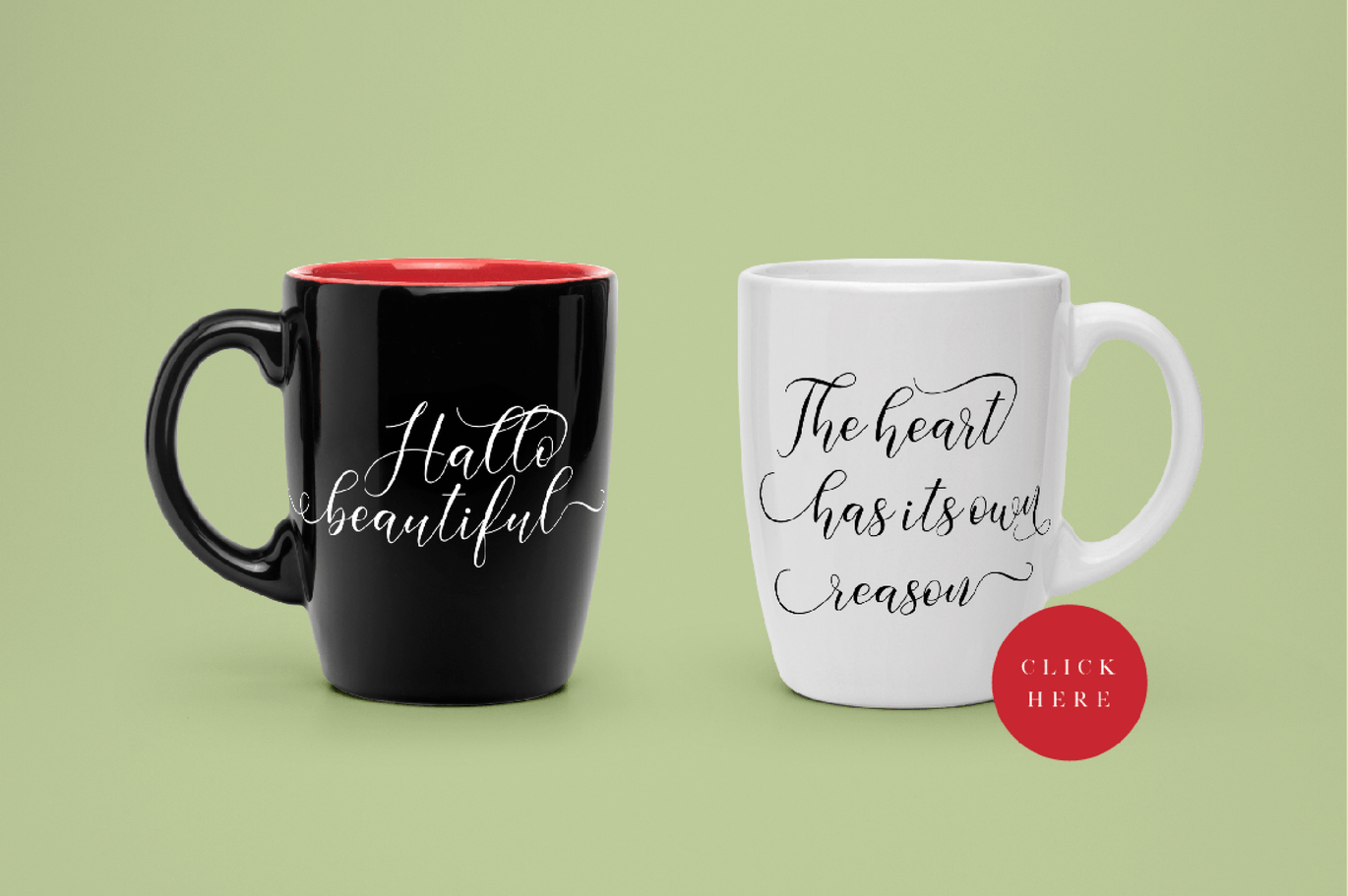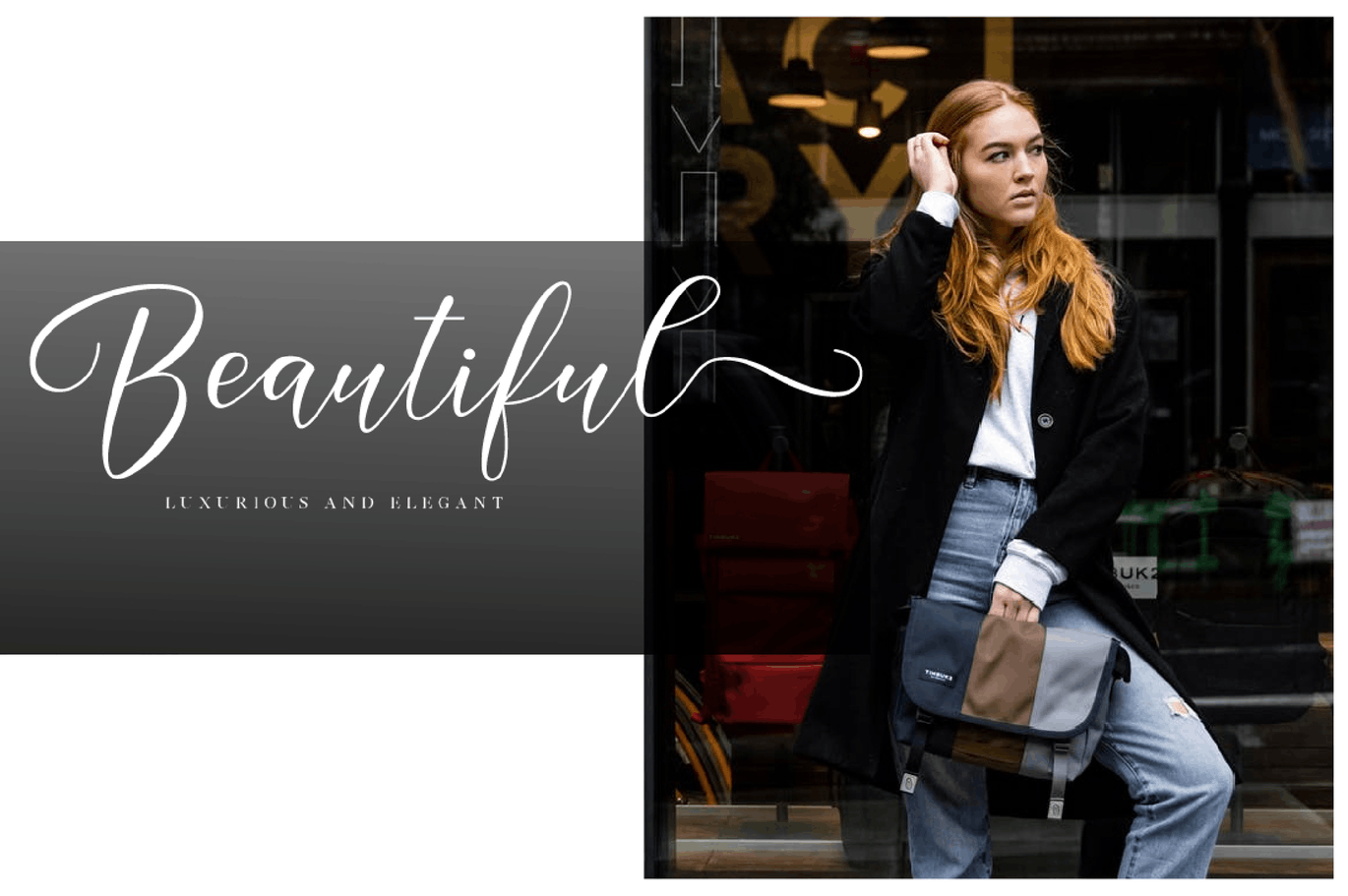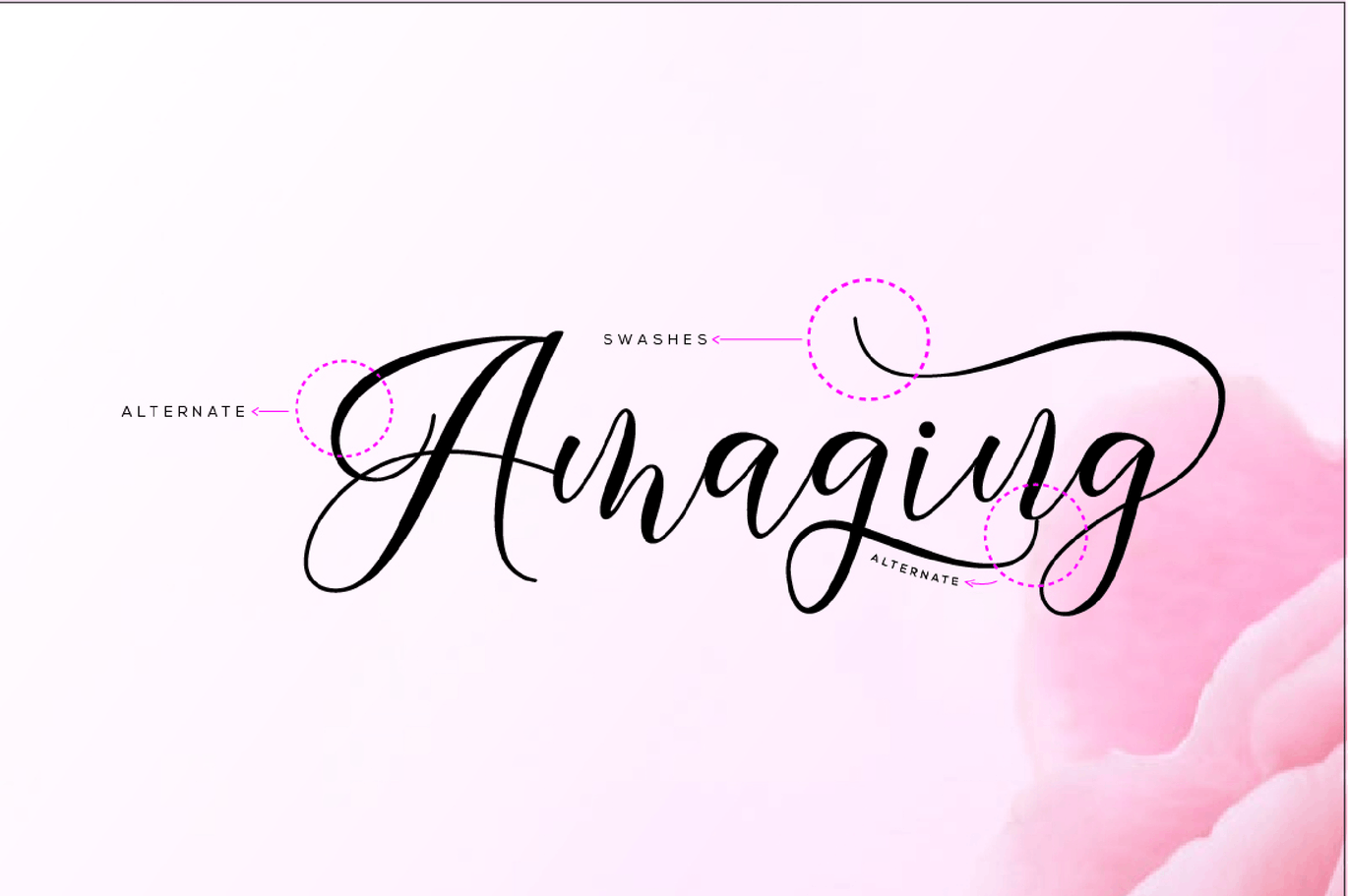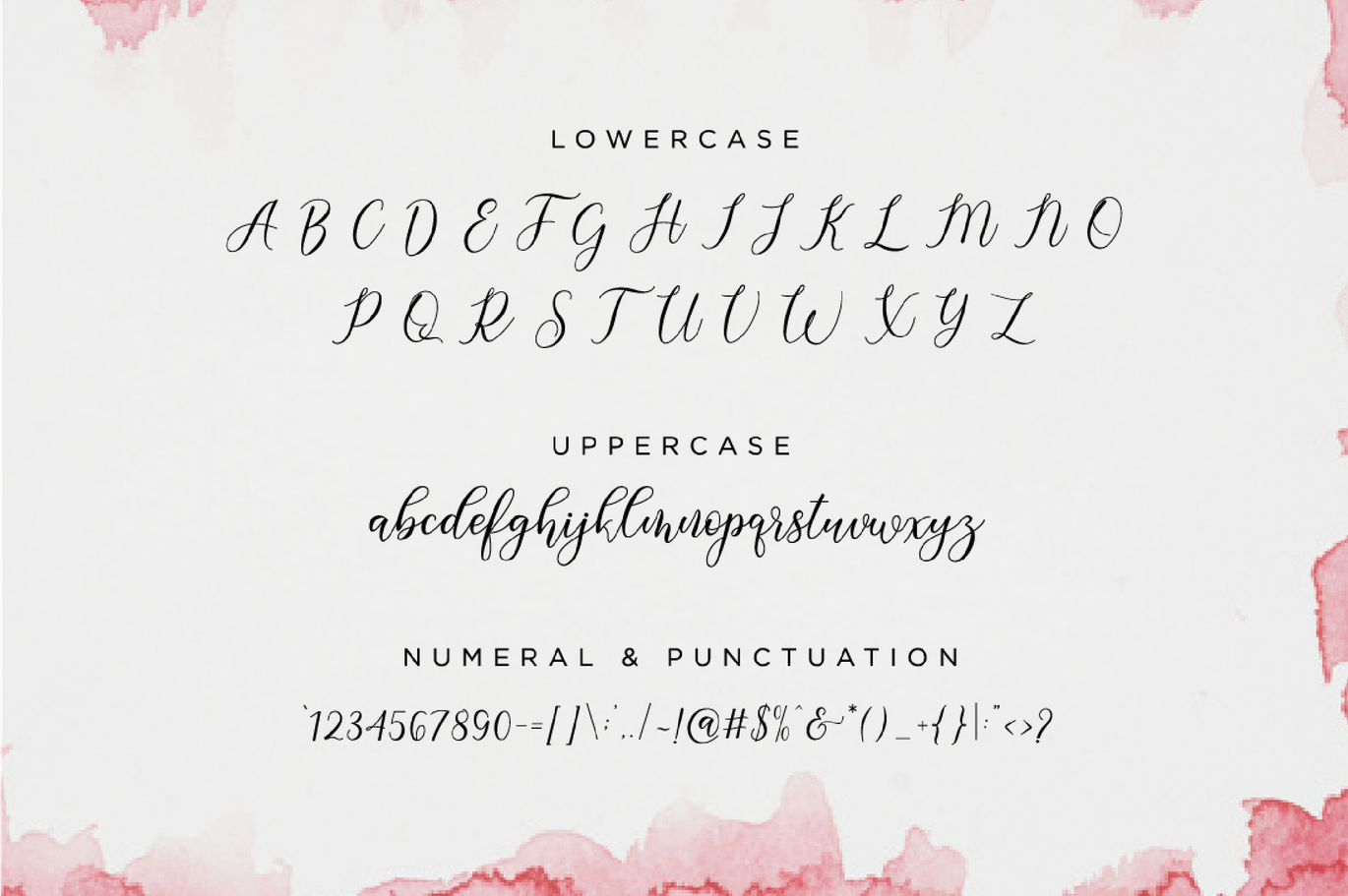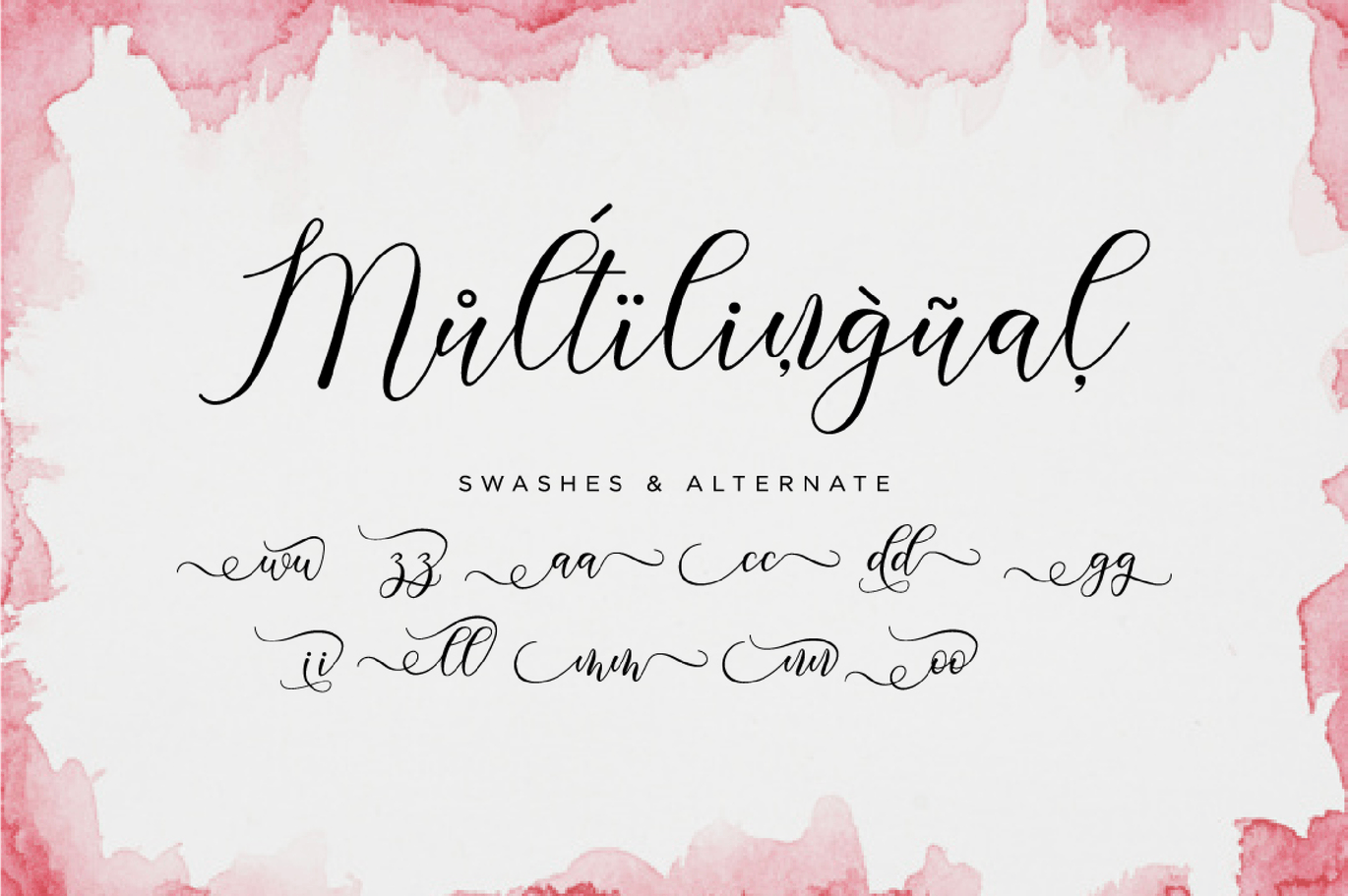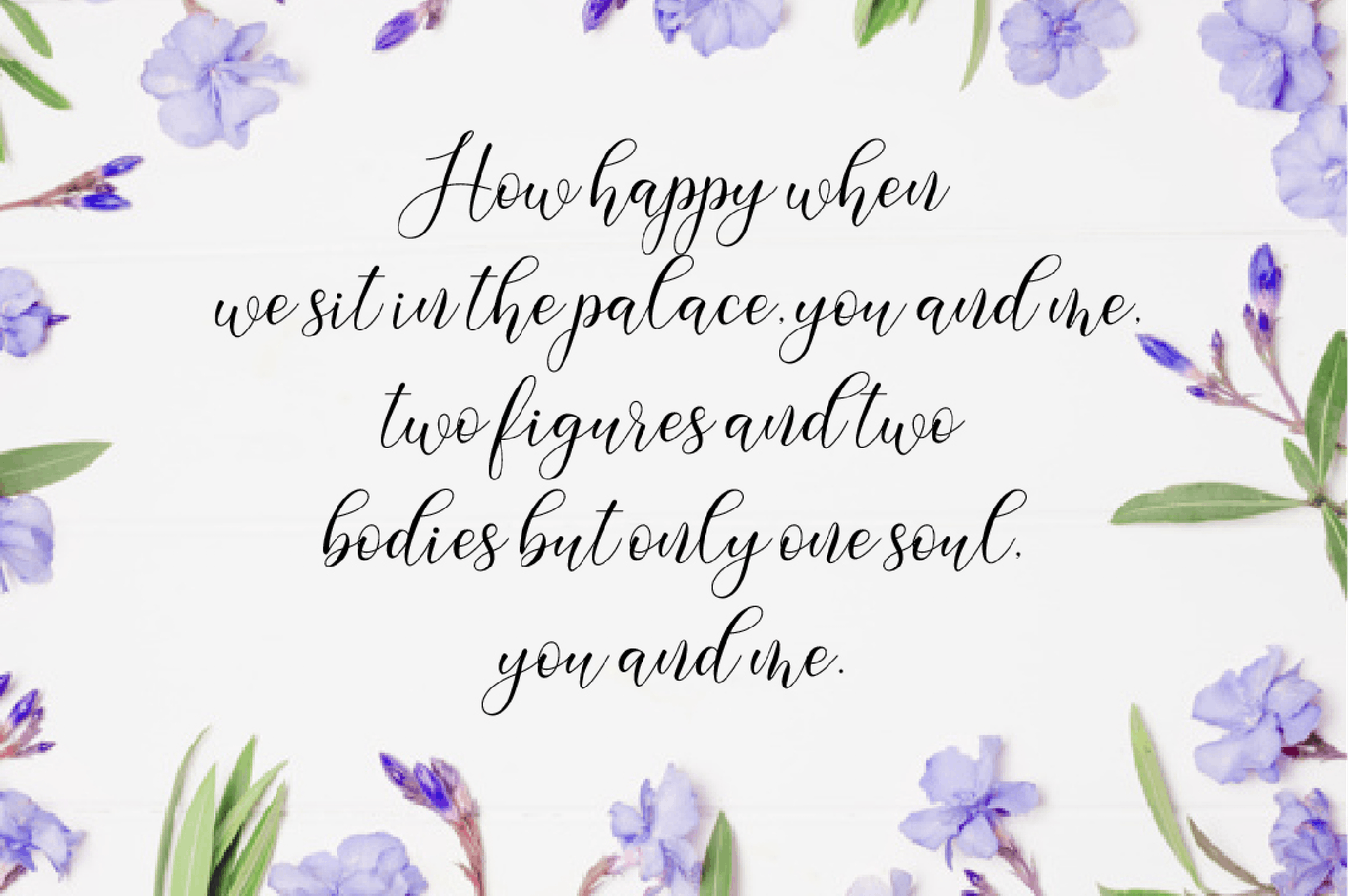
Gresya Script Font
Gresya Script Font, a stylish Font Style. This beautiful script font offers your personal touch to your latest art project with an elegant, classy and modern look.
The Gresya Script offers gorgeous typographic perfect for many different projects such as logos & branding, invitations, stationery, wedding designs, social media posts, advertisements, product packaging, product designs, labels, photography, watermarks, special events or anything that needs handwriting taste. What’s Included:
- Numeral and punctuation
- Stylistic Alternates & Ligatures
- Swashes
- International Language